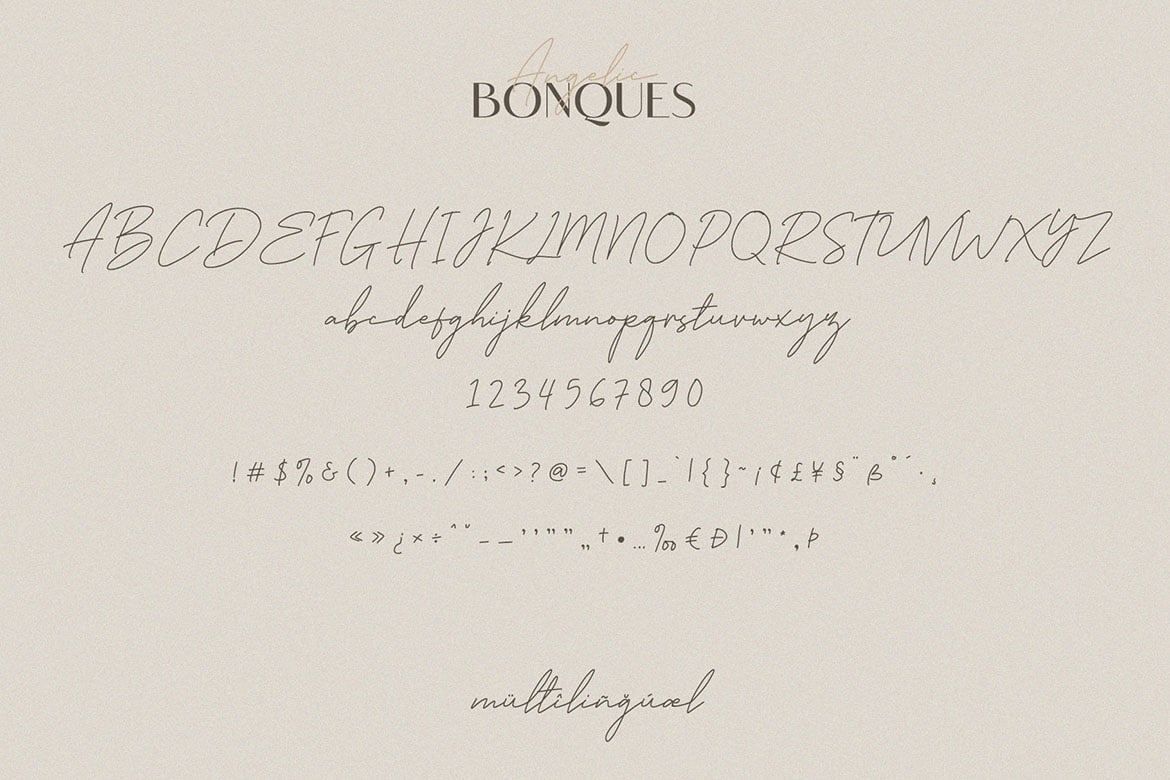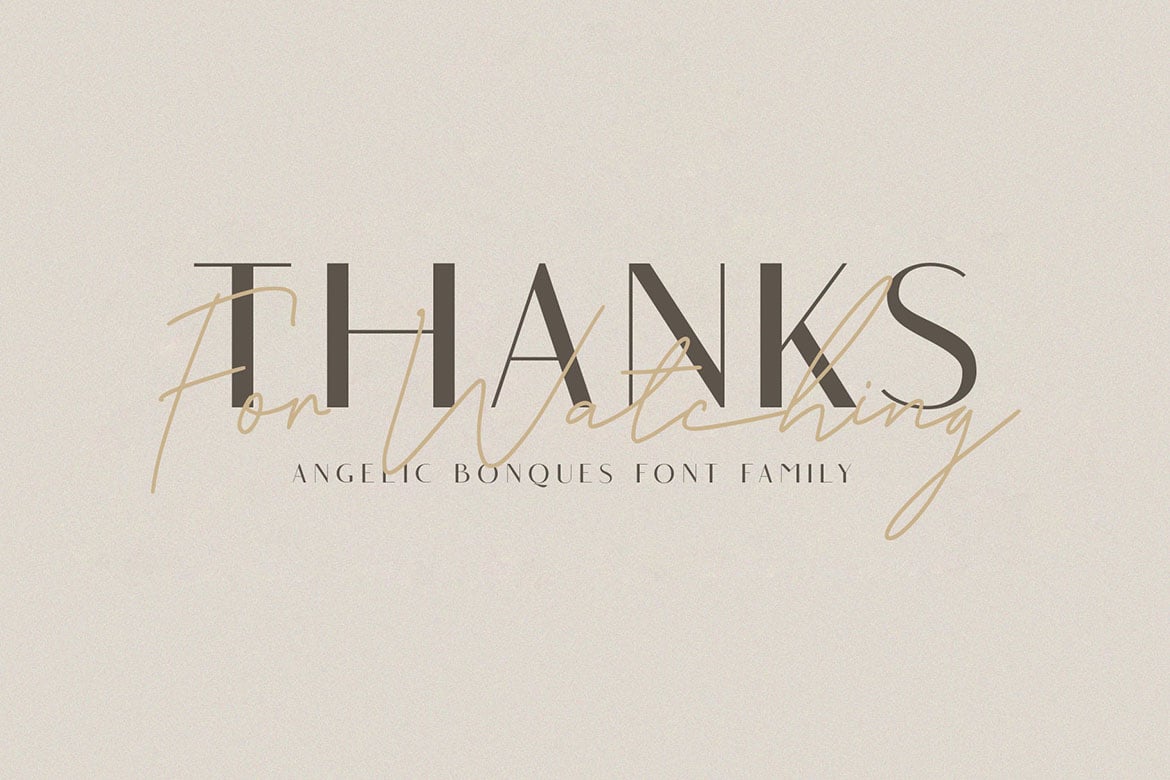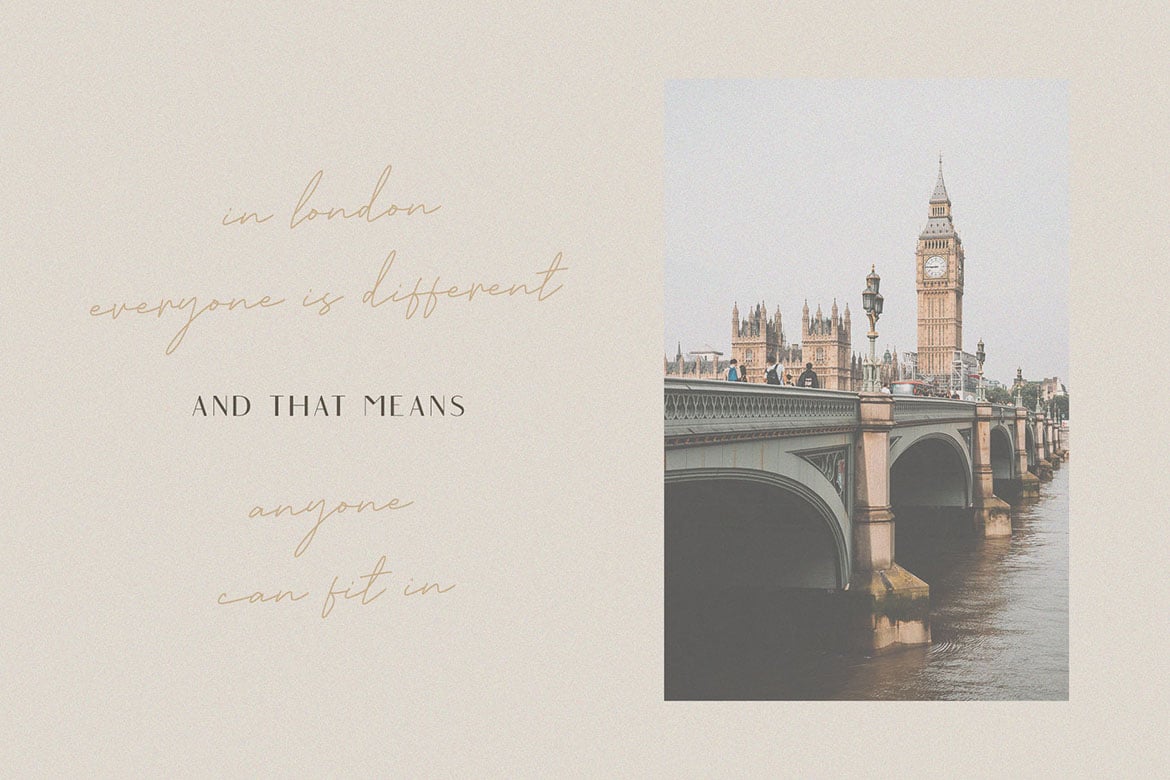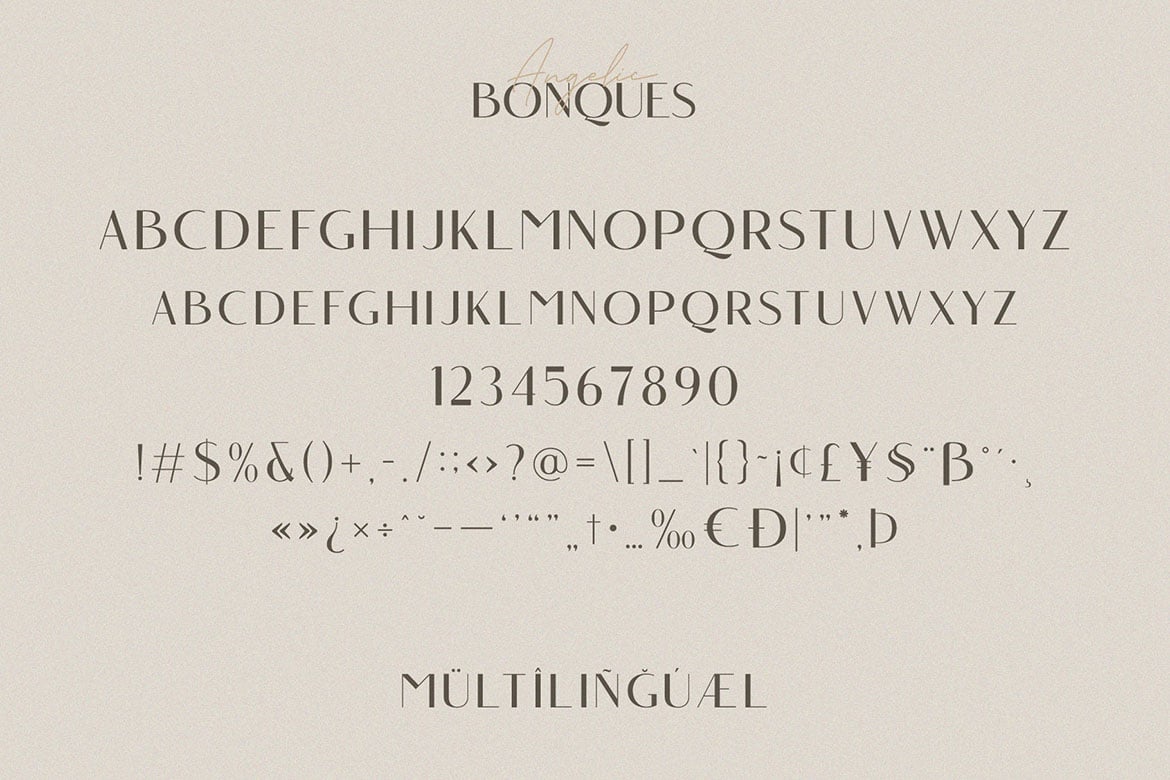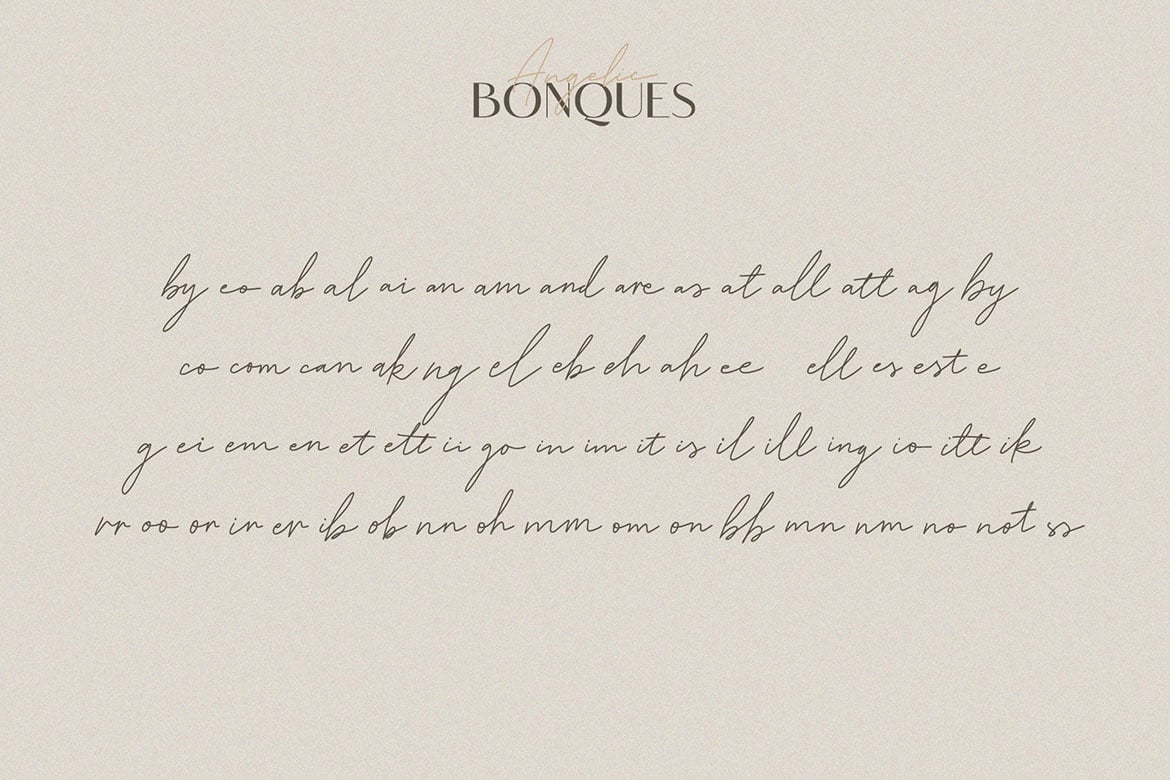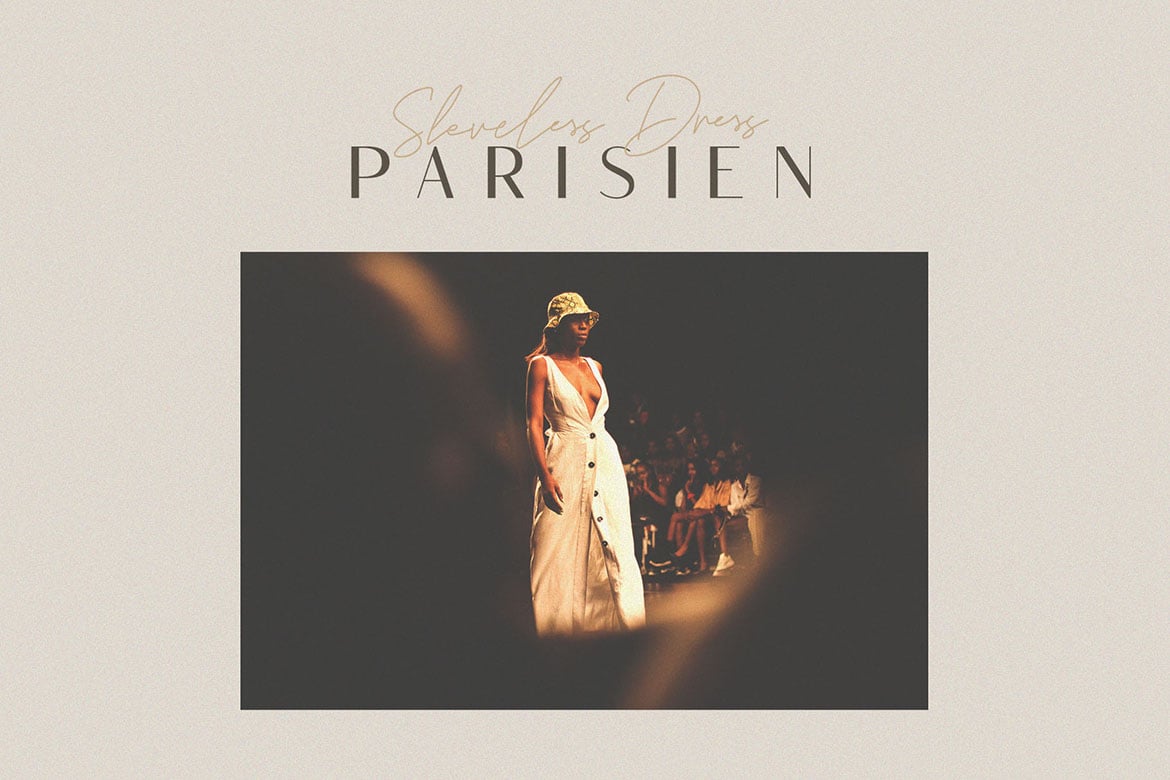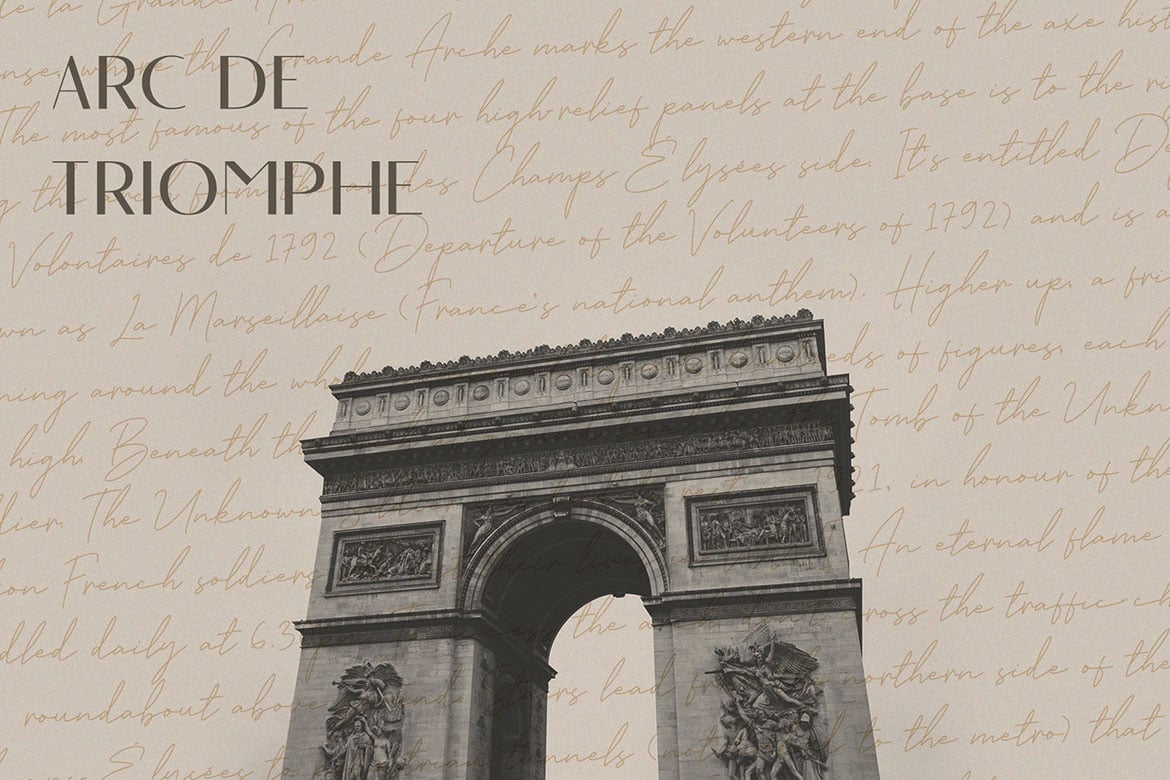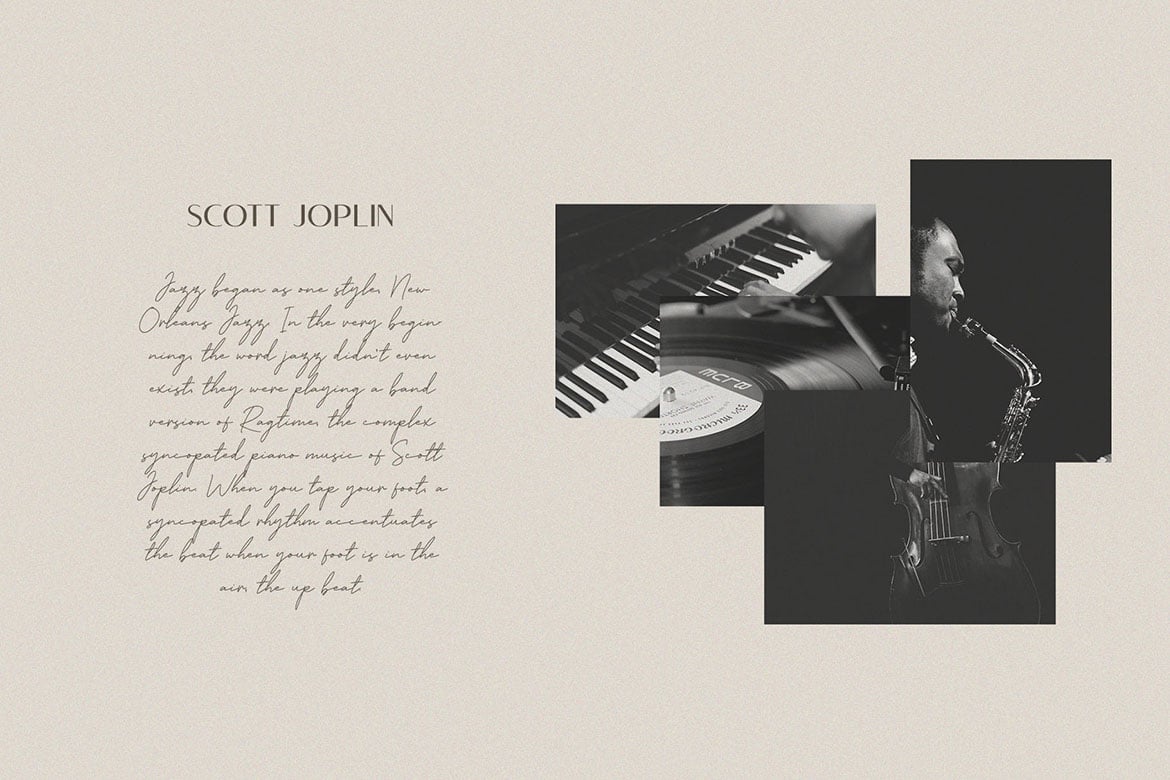
Angelic Bonques – Font Duo
Angelic Bonques – Perfect Pair Font Duo is a combination of an elegant sans serif font & beauty handwritten script font based on the expression of real handwriting. Angelic Bonques – Perfect Pair Font Duo will work perfectly for fashion, e-commerce brands, trend blogs, wedding boutiques or any business that wants to appear upscale and chic.
Angelic Bonques – Perfect Pair Font Duo also Suitable for Logo, greeting cards, quotes, posters, branding, name card, stationary, design title, blog header, art quote, typography, art, modern envelope lettering or book design, happening style like handdrawn design or watercolor design theme, craft design, any DIY project, book title, or any purpose to make your art/design project look pretty and trendy.